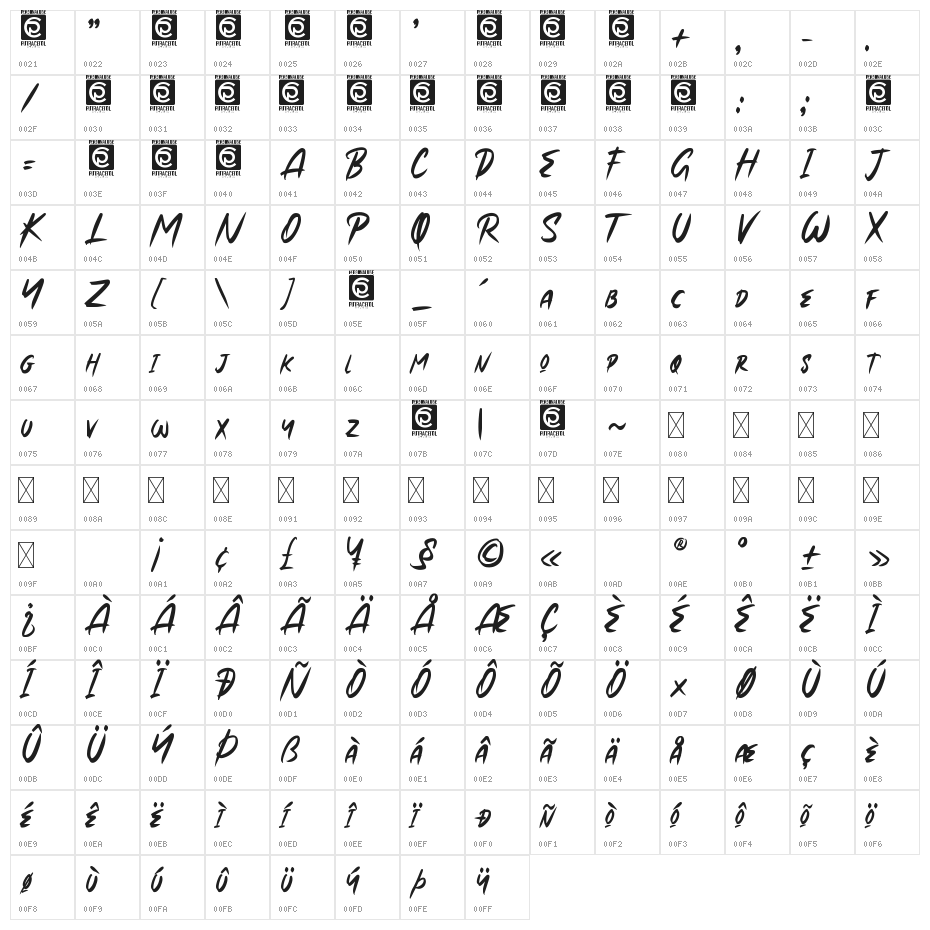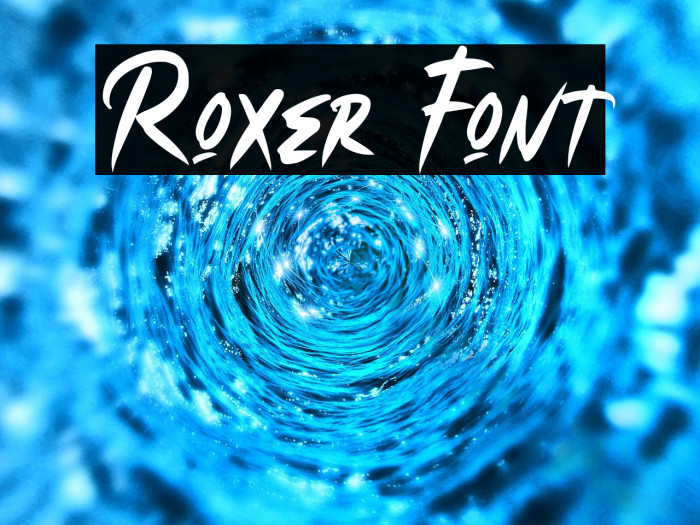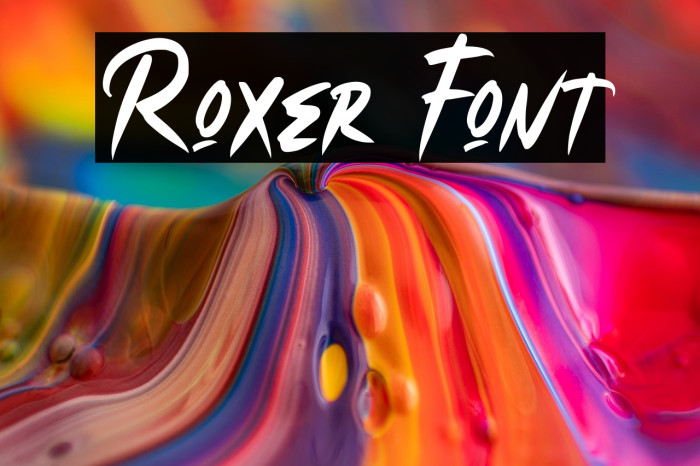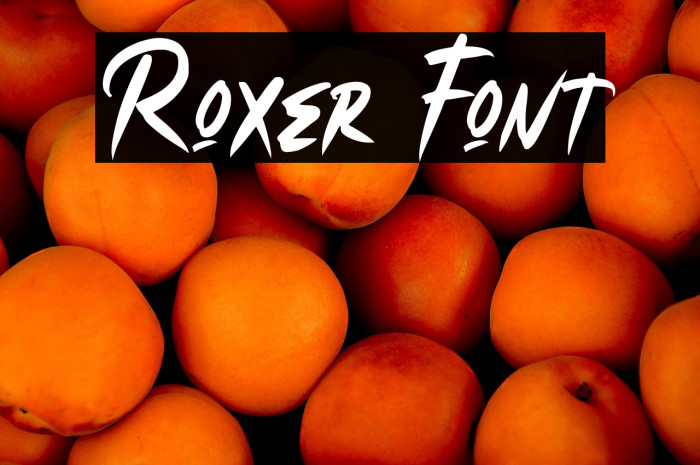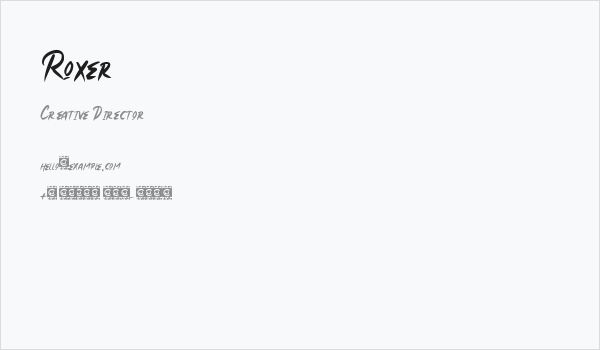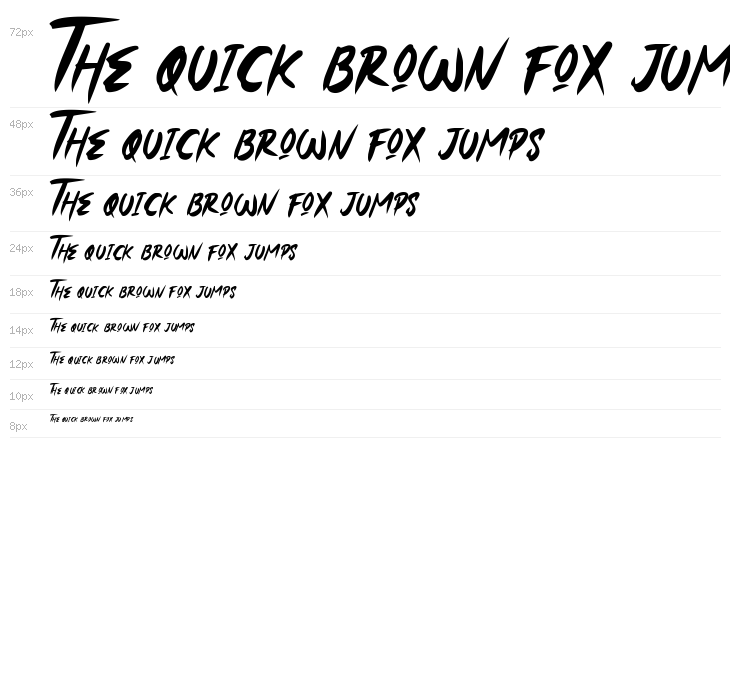
Roxer Font
Roxer Description
This font features a bold and dynamic script style with a modern flair. The uppercase letters are characterized by sweeping curves and sharp angles, giving a sense of motion and energy. The lowercase letters maintain a consistent style, offering a cohesive look. The font's strokes are thick and expressive, contributing to its bold appearance. It is designed to capture attention and convey a sense of creativity and individuality. The overall design is sleek and contemporary, making it suitable for various modern applications.
| Use Case | Logos, Headlines, Advertising |
| Proposed Projects | Ideal for branding, advertising, and creative projects that require a bold and modern look. |